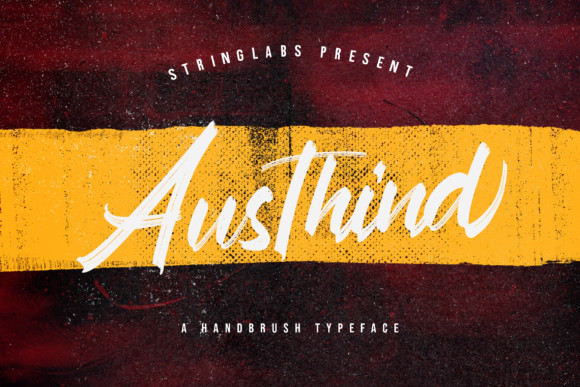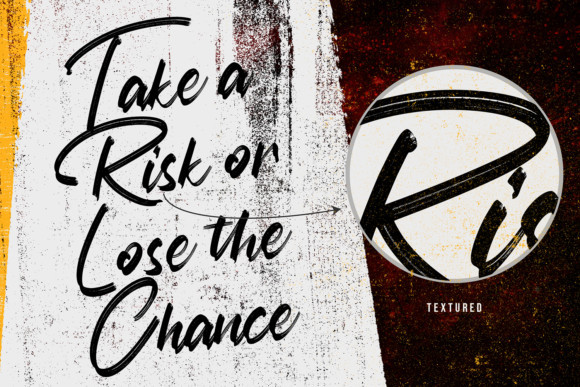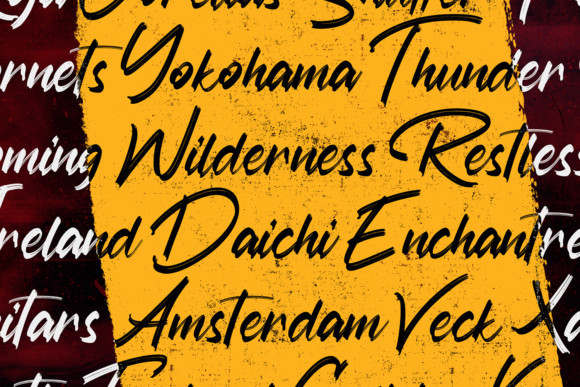
Austhind Font
Austhind is a gorgeous handwritten font designed with the help of an outstanding brush pen. Add it to your creative ideas and notice how it makes them come alive!